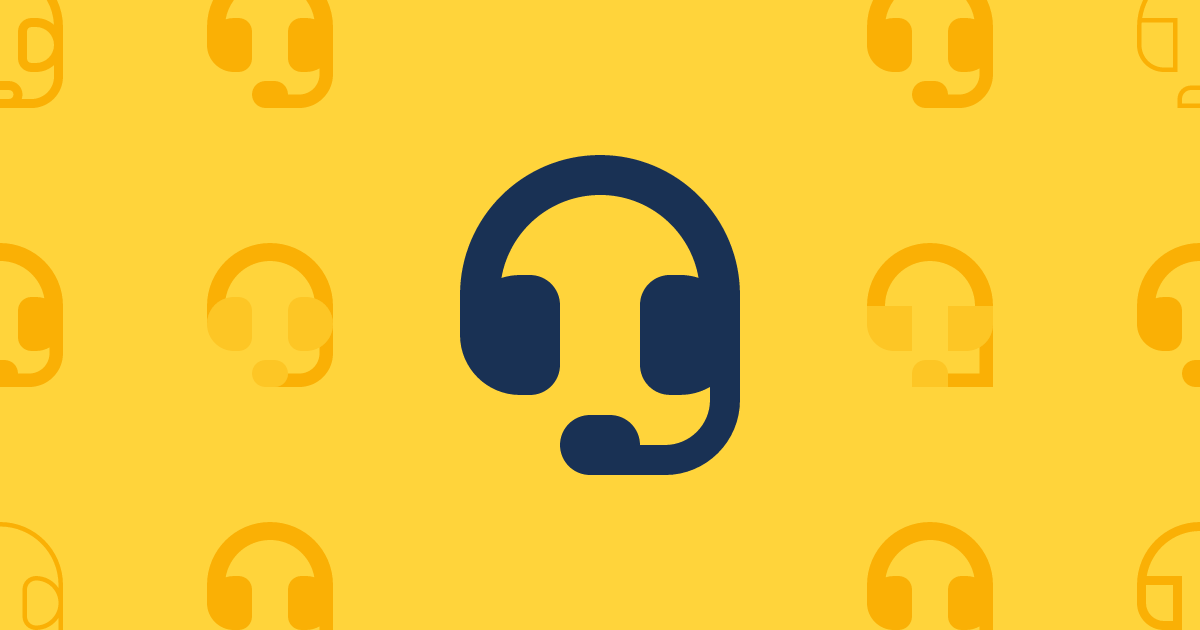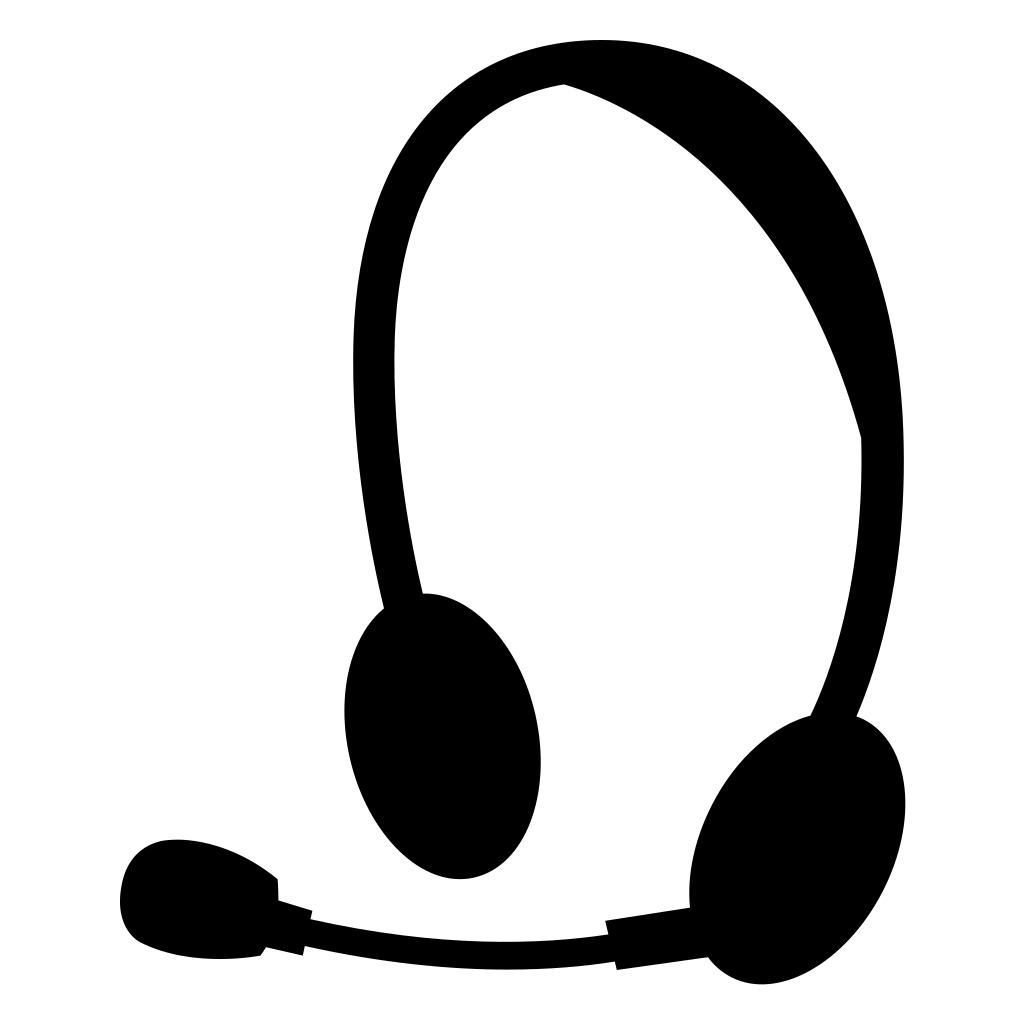
Headset Icon Font Awesome . Headphones icon in the solid style. Make a bold statement in small sizes. Available now in font awesome 6. Click to download headset, fontawesome, awesome icon from font awesome iconpack by font awesome team After you get up and running, you can place font awesome. Customise, download, get code samples for headphones icon from font awesome 5 solid icon set. Easily pick and adjust icon styles, sizes, and padding. The w3schools online code editor allows you to edit code and view the result in your browser Headset icon in the solid style. The table below shows the free font awesome 5 audio & video icons:
Headset icon in the solid style. Make a bold statement in small sizes. The table below shows the free font awesome 5 audio & video icons: Click to download headset, fontawesome, awesome icon from font awesome iconpack by font awesome team Available now in font awesome 6. Headphones icon in the solid style. Easily pick and adjust icon styles, sizes, and padding. Make a bold statement in small sizes. After you get up and running, you can place font awesome. Available now in font awesome 6.
Headset Icon Font Awesome Available now in font awesome 6. The w3schools online code editor allows you to edit code and view the result in your browser Headphones icon in the solid style. Headset icon in the solid style. Easily pick and adjust icon styles, sizes, and padding. Customise, download, get code samples for headphones icon from font awesome 5 solid icon set. Click to download headset, fontawesome, awesome icon from font awesome iconpack by font awesome team Make a bold statement in small sizes. Available now in font awesome 6. After you get up and running, you can place font awesome. The table below shows the free font awesome 5 audio & video icons: Make a bold statement in small sizes.
Headset,Font,Technology,Clip art,Symbol,Line art 185178 Free Icon Headset Icon Font Awesome The w3schools online code editor allows you to edit code and view the result in your browser Available now in font awesome 6. Customise, download, get code samples for headphones icon from font awesome 5 solid icon set. Easily pick and adjust icon styles, sizes, and padding. After you get up and running, you can place font awesome. Make a. Headset Icon Font Awesome.
Font Awesome Headset Icon Font Awesome Iconpack Font Awesome Team Headset Icon Font Awesome Available now in font awesome 6. Make a bold statement in small sizes. After you get up and running, you can place font awesome. Headphones icon in the solid style. The table below shows the free font awesome 5 audio & video icons: Available now in font awesome 6. Click to download headset, fontawesome, awesome icon from font awesome iconpack. Headset Icon Font Awesome.
Font Awesome The Complete Library Guide Headset Icon Font Awesome Customise, download, get code samples for headphones icon from font awesome 5 solid icon set. Available now in font awesome 6. The w3schools online code editor allows you to edit code and view the result in your browser The table below shows the free font awesome 5 audio & video icons: After you get up and running, you can place. Headset Icon Font Awesome.
Headphone icon design earphone symbol Royalty Free Vector Headset Icon Font Awesome Make a bold statement in small sizes. Customise, download, get code samples for headphones icon from font awesome 5 solid icon set. Headphones icon in the solid style. Click to download headset, fontawesome, awesome icon from font awesome iconpack by font awesome team Available now in font awesome 6. After you get up and running, you can place font awesome.. Headset Icon Font Awesome.
Free Icons Font Awesome Headset Icon Font Awesome Make a bold statement in small sizes. Easily pick and adjust icon styles, sizes, and padding. The table below shows the free font awesome 5 audio & video icons: Click to download headset, fontawesome, awesome icon from font awesome iconpack by font awesome team The w3schools online code editor allows you to edit code and view the result in your. Headset Icon Font Awesome.
Headphone Icon 203953 Free Icons Library Headset Icon Font Awesome The w3schools online code editor allows you to edit code and view the result in your browser Available now in font awesome 6. Make a bold statement in small sizes. After you get up and running, you can place font awesome. Available now in font awesome 6. Make a bold statement in small sizes. Headphones icon in the solid style.. Headset Icon Font Awesome.
Computer Headset Svg Png Icon Free Download (21087) Headset Icon Font Awesome Customise, download, get code samples for headphones icon from font awesome 5 solid icon set. Click to download headset, fontawesome, awesome icon from font awesome iconpack by font awesome team Available now in font awesome 6. Headphones icon in the solid style. Headset icon in the solid style. After you get up and running, you can place font awesome. The. Headset Icon Font Awesome.
Headphones Font, PNG, 800x800px, Headphones, Audio, Audio Equipment Headset Icon Font Awesome Headphones icon in the solid style. The w3schools online code editor allows you to edit code and view the result in your browser Make a bold statement in small sizes. Available now in font awesome 6. Easily pick and adjust icon styles, sizes, and padding. Customise, download, get code samples for headphones icon from font awesome 5 solid icon set.. Headset Icon Font Awesome.
Font Awesome Icon Cheat Sheet 32779 Free Icons Library Headset Icon Font Awesome After you get up and running, you can place font awesome. Click to download headset, fontawesome, awesome icon from font awesome iconpack by font awesome team Easily pick and adjust icon styles, sizes, and padding. Make a bold statement in small sizes. Available now in font awesome 6. The table below shows the free. Headset Icon Font Awesome.